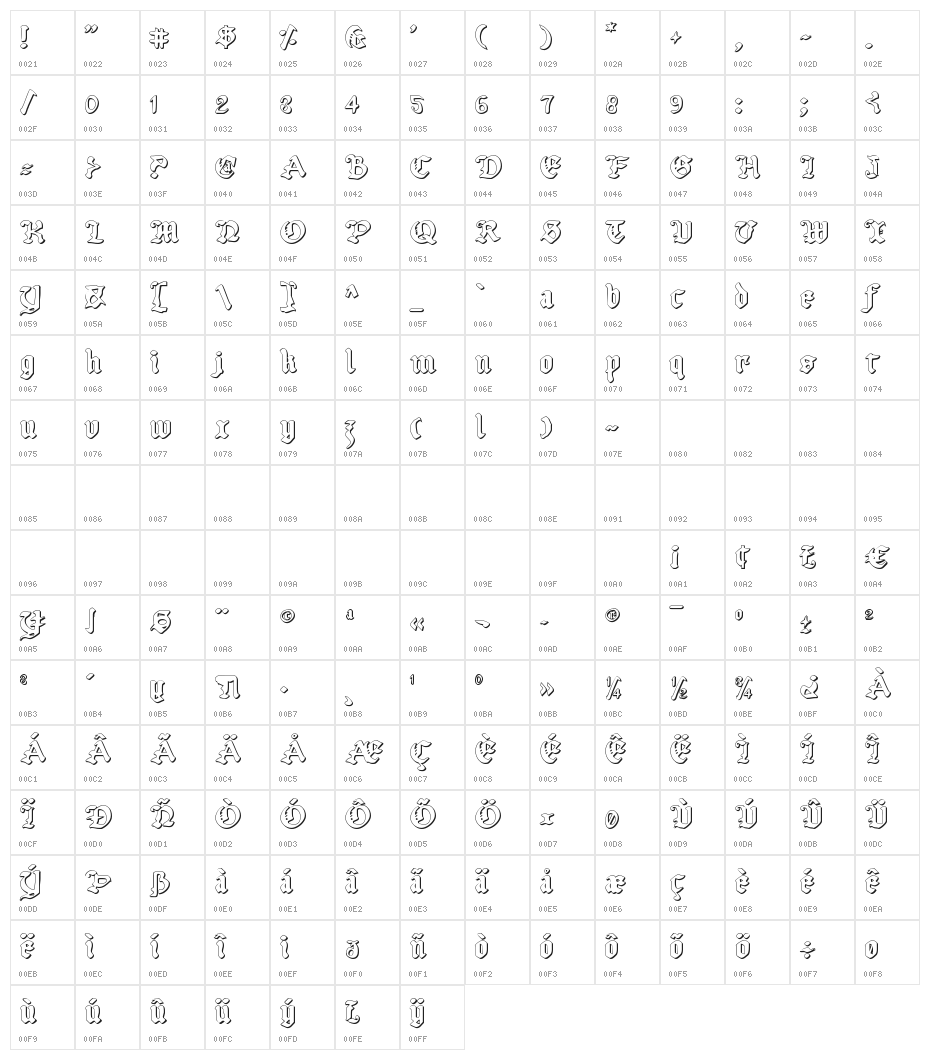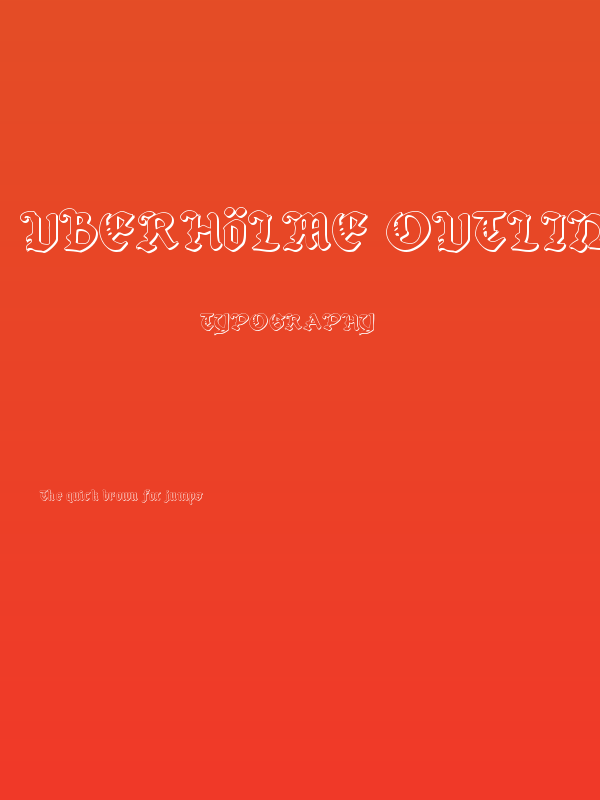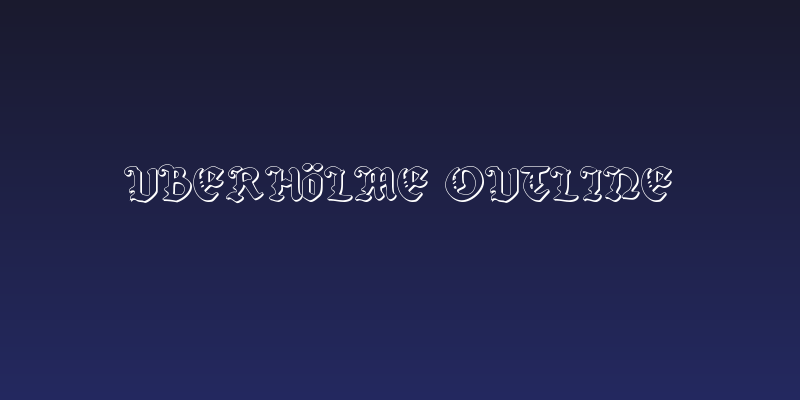
Uberhölme Outline Font
Uberhölme Outline Description
This font features a bold, outlined style with a distinct medieval or Gothic influence. The characters are highly decorative, with sharp, angular lines and intricate detailing that give it a historical and ornate appearance. The uppercase and lowercase letters maintain a consistent style, with the uppercase being slightly more elaborate. The numbers and special characters follow the same design principles, ensuring a cohesive look across all elements. This font's unique outline effect adds depth and dimension, making it stand out in any design.
| Use Case | Headlines, Logos, Decorative text |
| Proposed Projects | Ideal for projects requiring a historical or medieval theme, such as book covers, posters, or themed event invitations. |